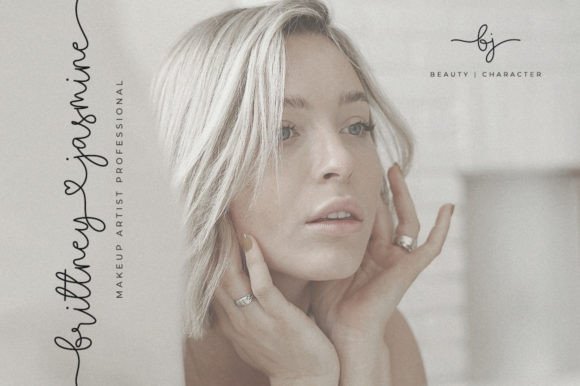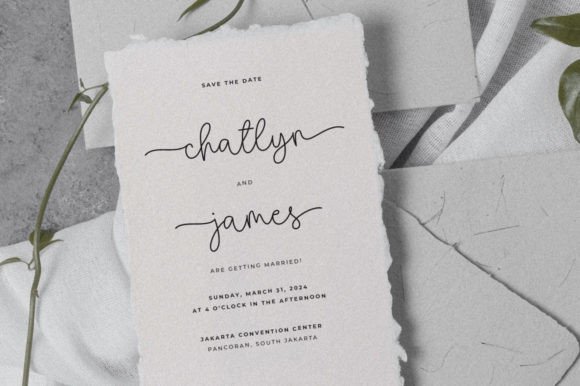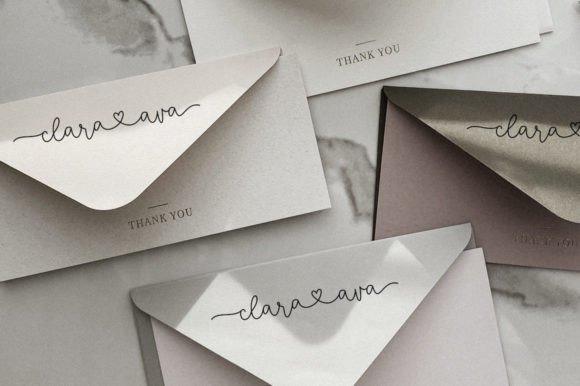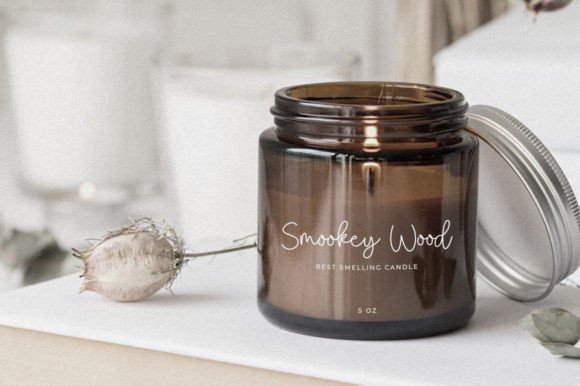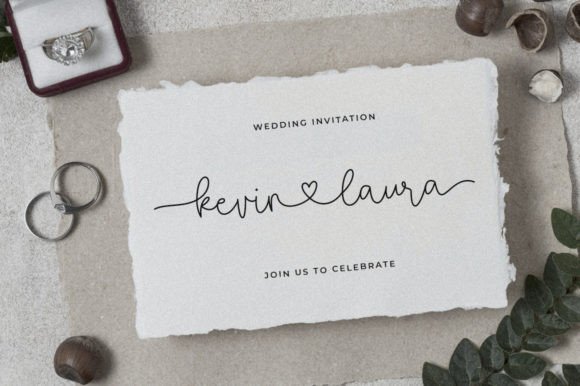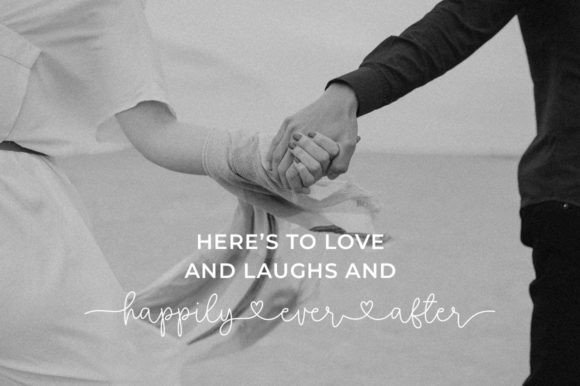
Introduction to Love Self Font
Do you remember that moment when you stumbled upon the perfect font to elevate your creative project? For designers, it’s like finding a hidden treasure that makes all the difference in their work. I still recall the thrill of discovering the Love Self Font – a lovely script font that has been a game-changer for many design enthusiasts.
With its elegant strokes and intricate swashes, the Love Self Font is a design resource that adds a touch of sophistication and romance to any text. Whether you’re working on a wedding invitation, a valentine’s day card, or any other creative project, this font is sure to captivate your audience. And the best part? You can download it for free, making it an accessible high-quality design resource for designers of all levels.
One of the standout features of the Love Self Font is its ability to be used with a transparent background, allowing you to add a personal touch to your designs. Whether you’re a professional designer or a hobbyist, this font is a valuable addition to your design arsenal.
Key Features of Love Self Font
- High-quality, hand-drawn design perfect for creative projects and personal branding.
- Features a transparent background, providing maximum flexibility for designers.
- Unique, cursive script style that adds a touch of personality to any design, making it perfect for quotes, logos, and titles.
Honest Review: Love Self Font
As a designer, I’m always on the lookout for high-quality design resources to elevate my creative projects. Recently, I stumbled upon the Love Self Font, which promises to be a unique addition to any design arsenal.
- ✨ Unique and cursive design style that adds a touch of personality to any project
- ✨ High-quality font that is suitable for both digital and print applications
- ✨ Transparent background, making it easy to use with any design element
- ⚠️ Limited character set, which may not be ideal for longer text blocks
- ⚠️ May require some adjustments to achieve the desired spacing and alignment
Overall, I’m impressed with the Love Self Font and its potential to add a touch of creativity to any design project. While it may have some limitations, the benefits far outweigh the drawbacks, making it a solid addition to any design resource collection.
Tips for Getting the Most Out of Love Self Font
Use the Love Self Font in combination with other design elements to create a unique and visually appealing design. Experiment with different font sizes and colors to get the most out of this font.
The Love Self Font is perfect for creating social media graphics, blog posts, and presentations. It’s also great for creating quotes, posters, and flyers.
Carolyna Pro is a modern, high-end font designed for use in a variety of creative projects, from branding and advertising to editorial and publishing. It’s a versatile font that works well with both transparent backgrounds and opaque ones, making it easy to incorporate into any design. While it’s not as free-flowing as Love Self Font, Carolyna Pro offers a similar level of sophistication and elegance, making it an excellent choice for designers who want to create high-quality designs.